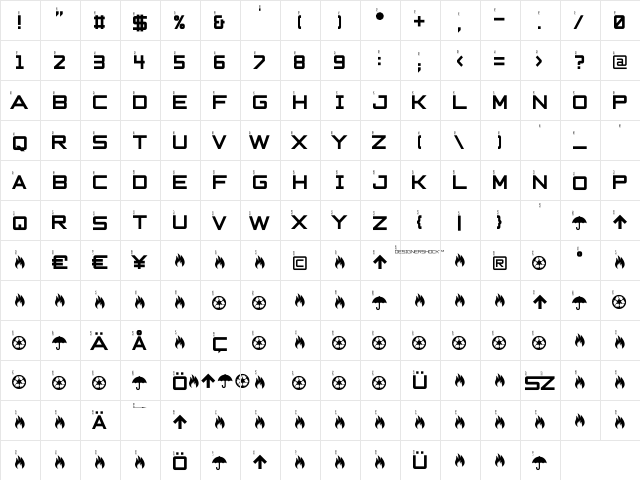
DS GS65 Regular
Design Context for DS GS65 Typeface
DS GS65 takes a measured approach to typography — its balanced proportions and neutral character make it a reliable workhorse for both digital and print work.